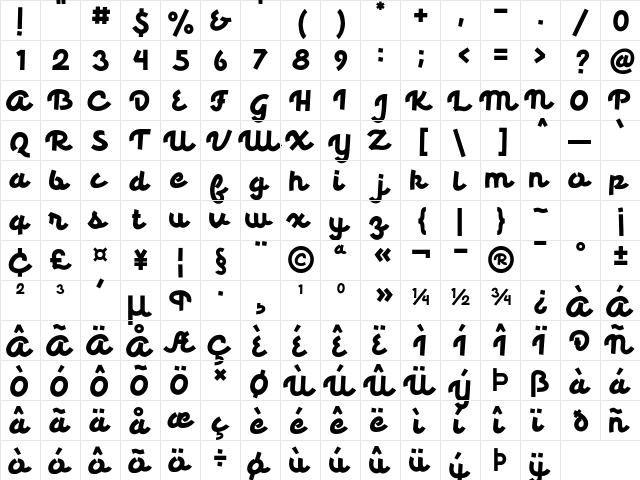
Palmore Regular
| Designer | Rudhi Sasmito |
Design Context for Palmore Typeface
Palmore takes a measured approach to typography — its balanced proportions and neutral character make it a reliable workhorse for both digital and print work.